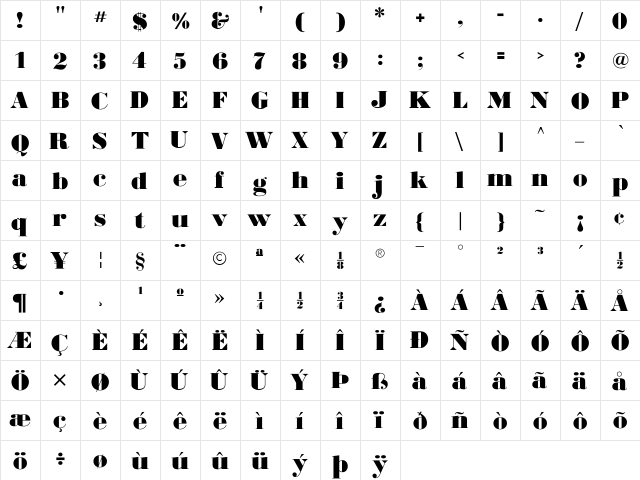
BodoniUltraFLF Regular
Design Context for BodoniUltraFLF Typeface
BodoniUltraFLF takes a measured approach to typography — its balanced proportions and neutral character make it a reliable workhorse for both digital and print work.